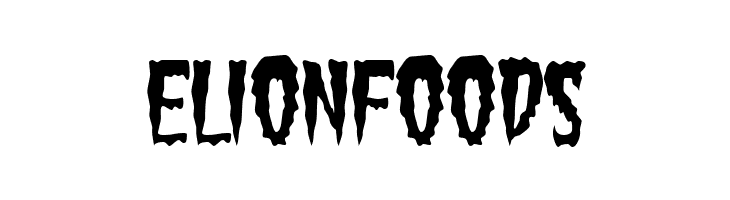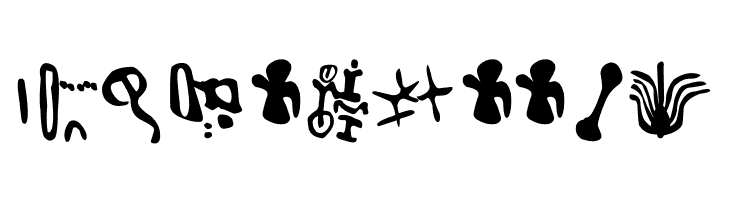
A bold, jagged font with a spooky, horror-themed design.
A digital display font with a classic 7-segment style, evoking retro tech aesthetics.
A segmented, digital-style font resembling an LED display.
A digital display-inspired font with a segmented, italicized style.
A rough, italic typewriter-style font with a vintage, distressed texture.
A rugged, vintage typewriter-style font with a distressed, textured appearance.
A pictographic, decorative font mimicking ancient stone carvings.